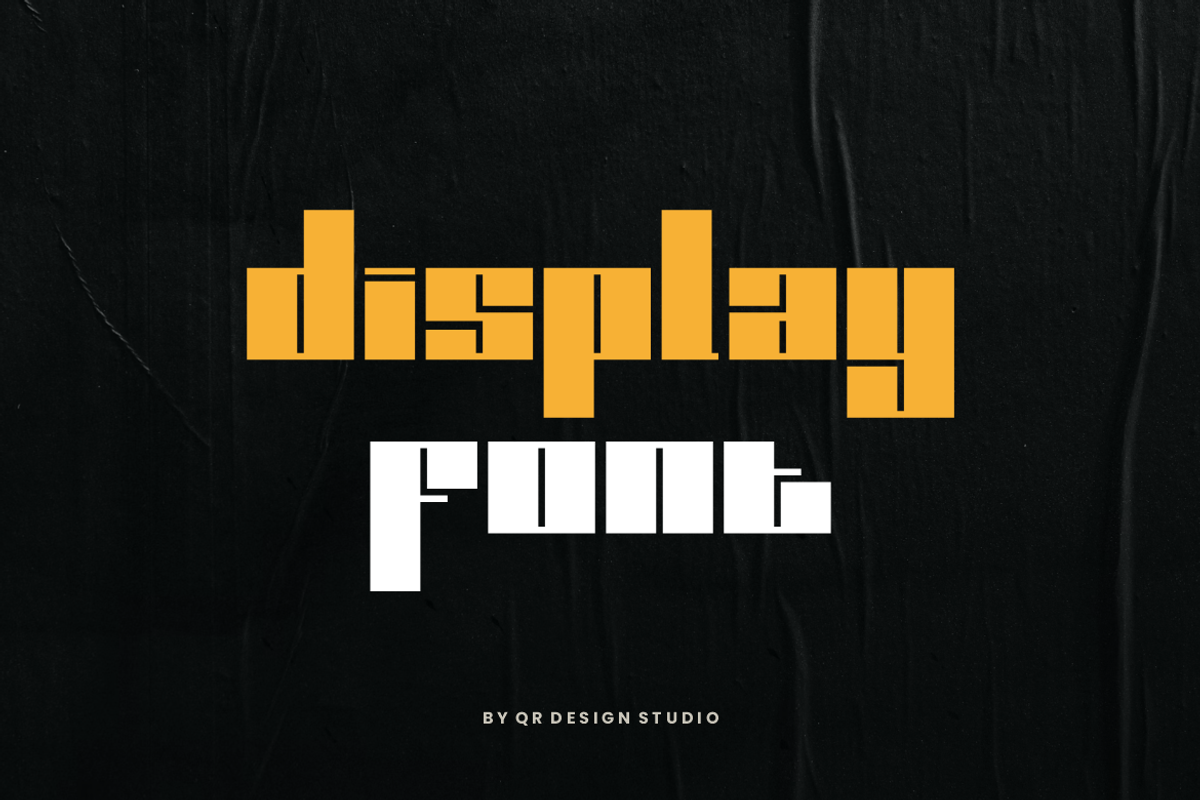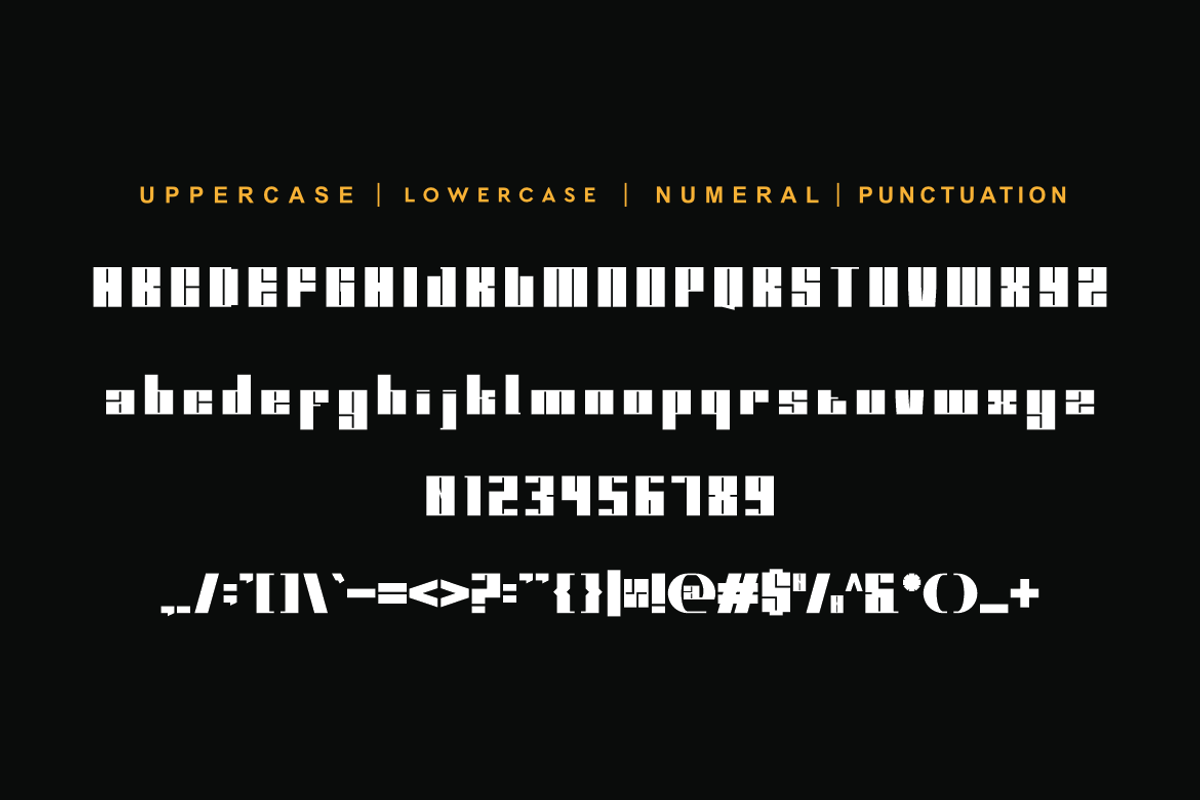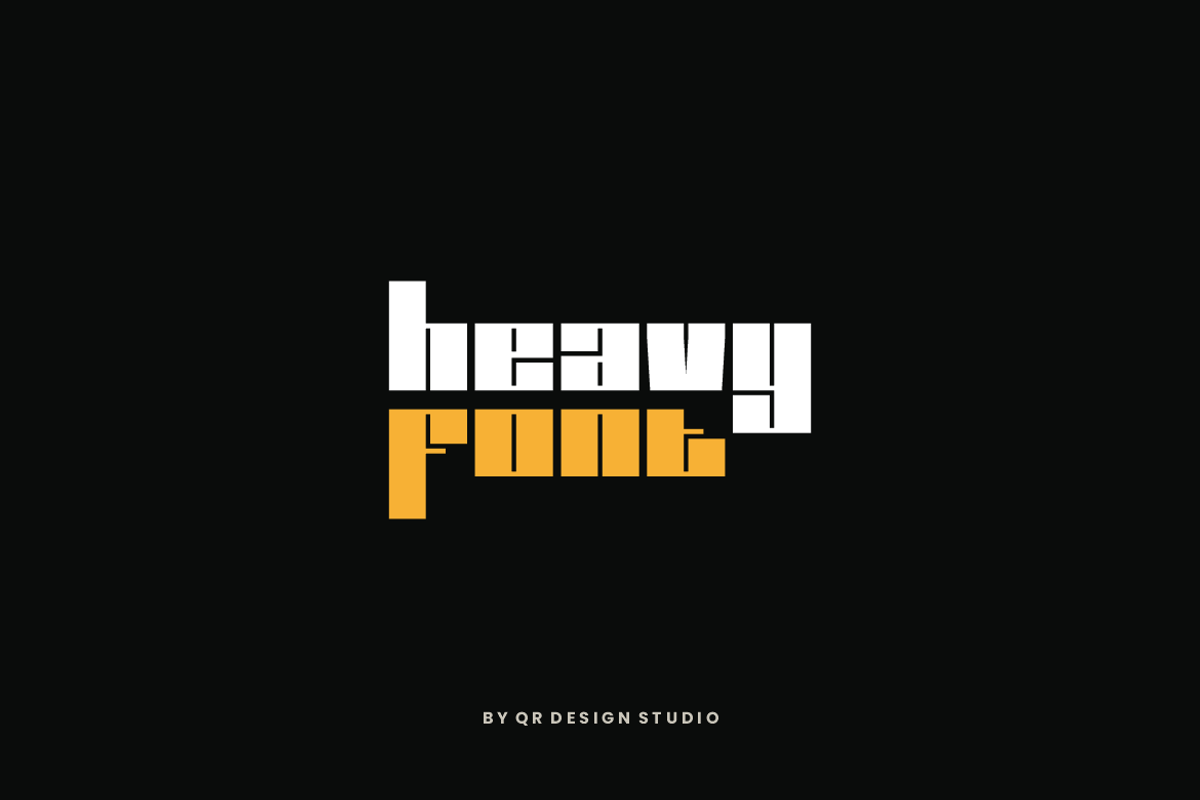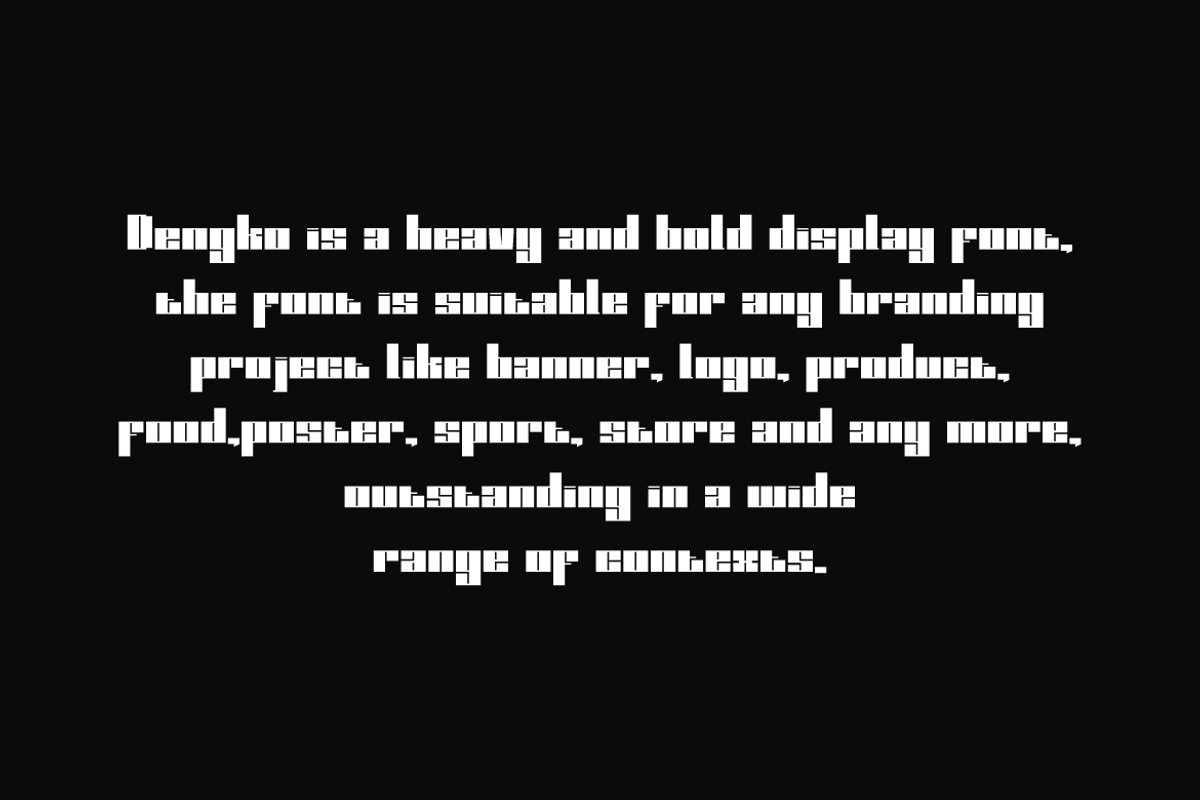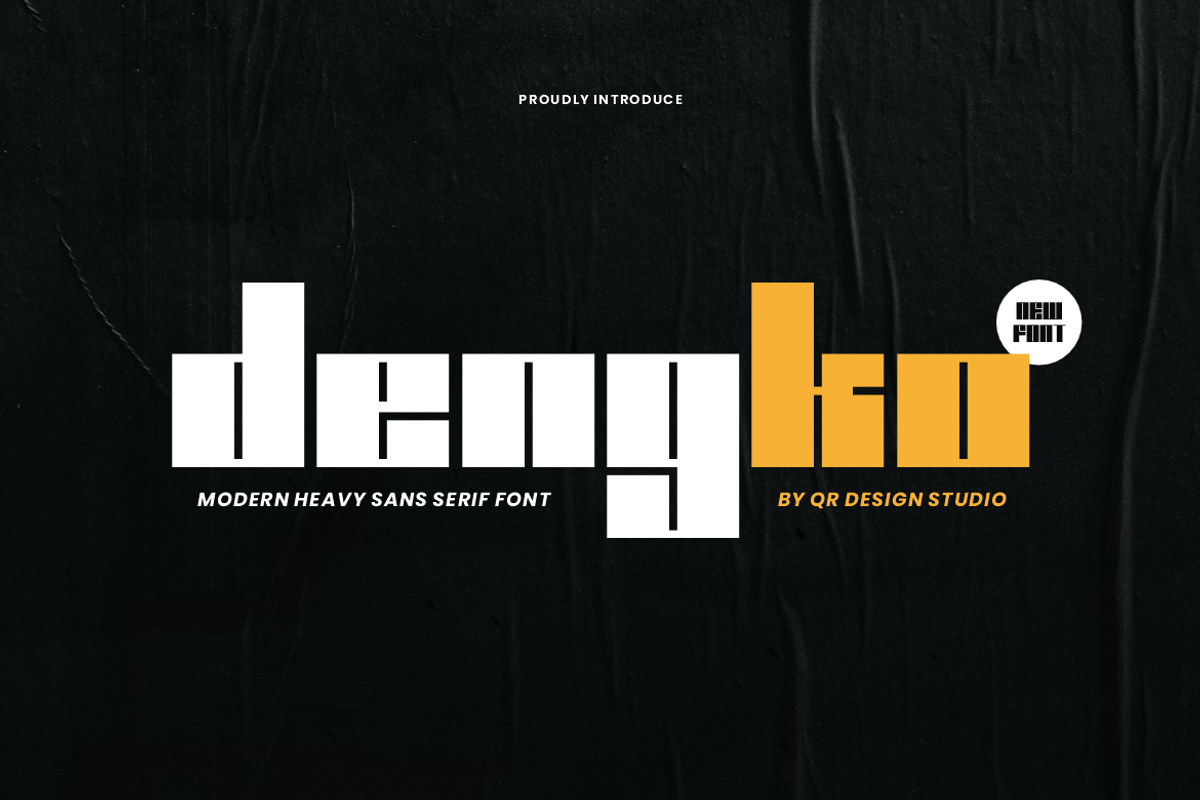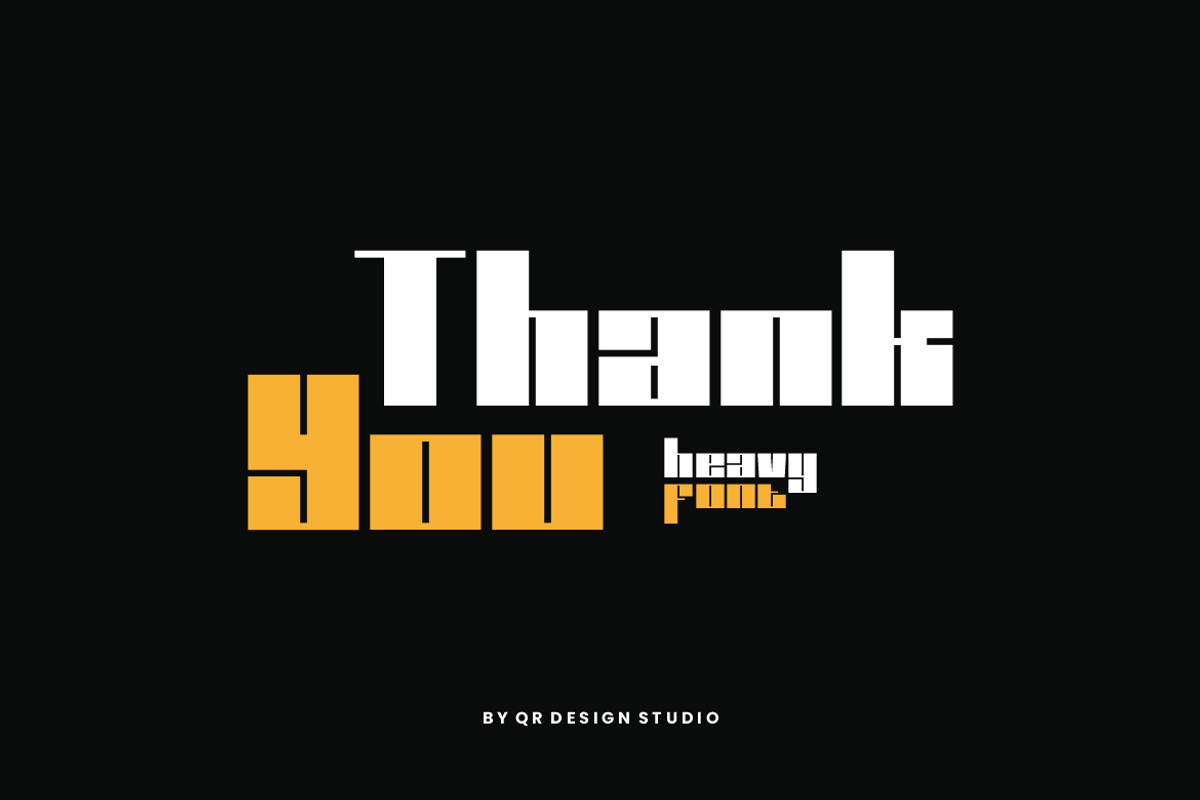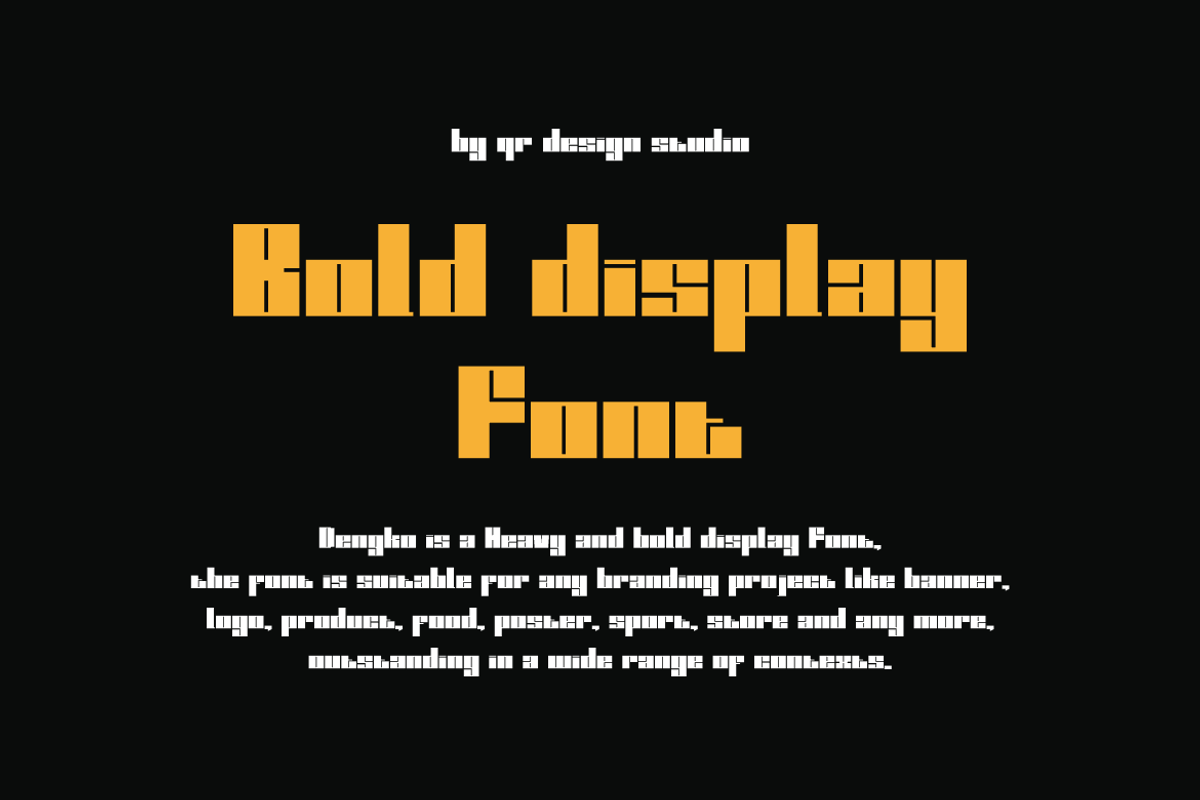
Dengko - Heavy Sans Serif Font
Dengko Font is a bold and authentic display font. The font is suitable for any branding project like poster, logo, sport, and many more. Outstanding in a wide range of contexts.